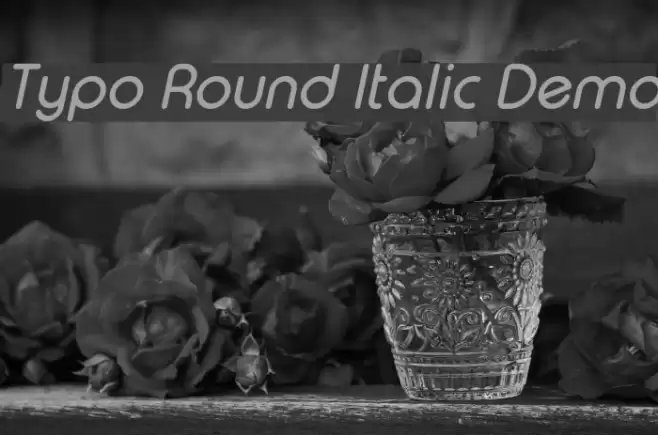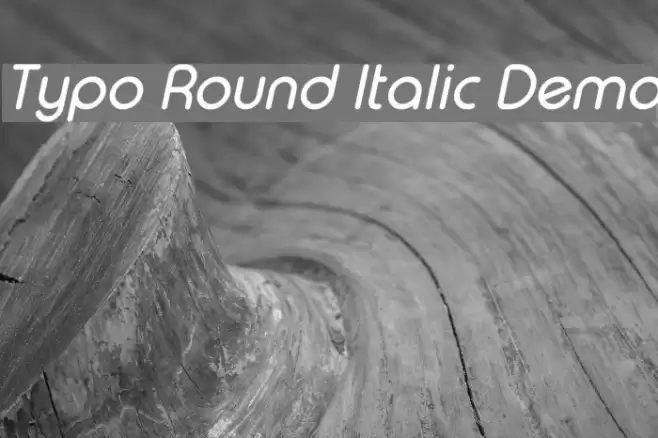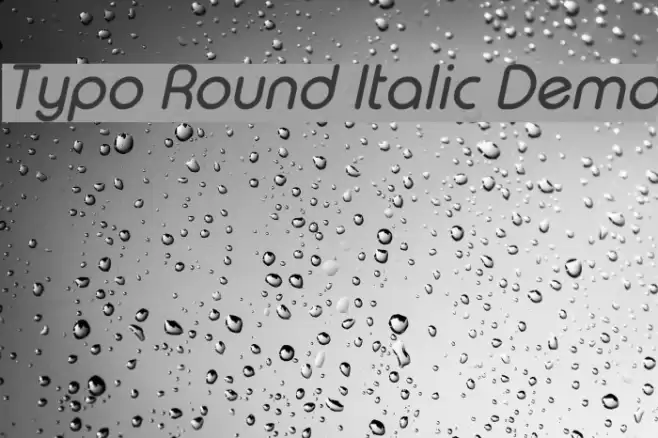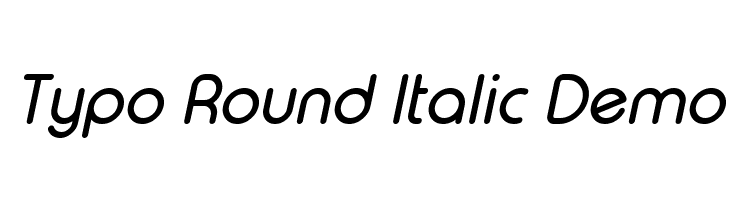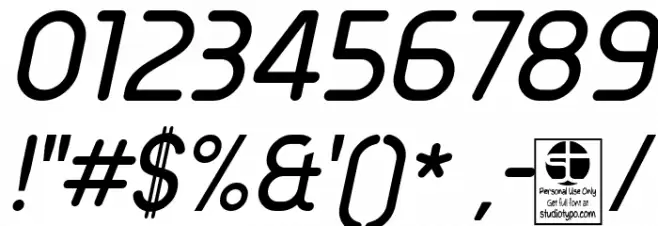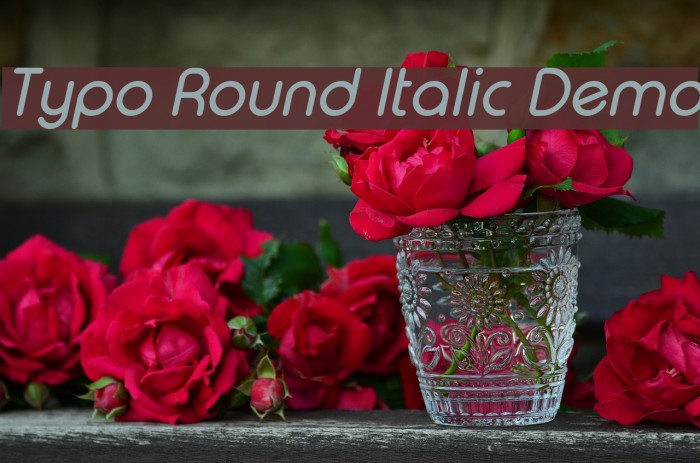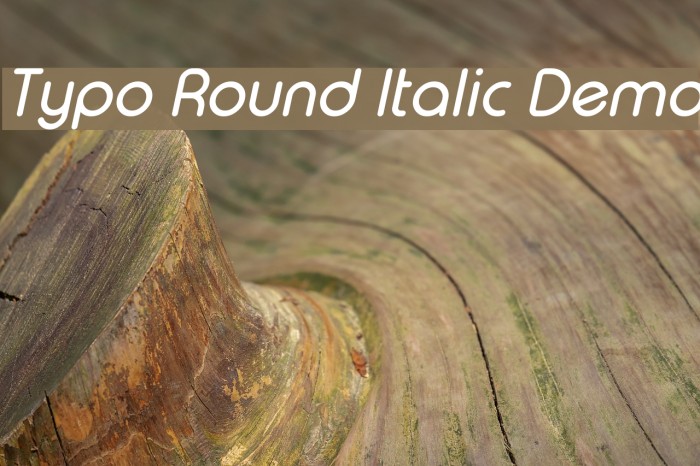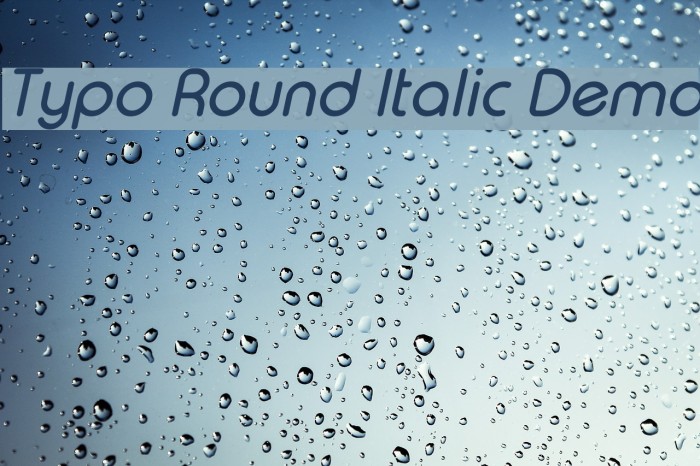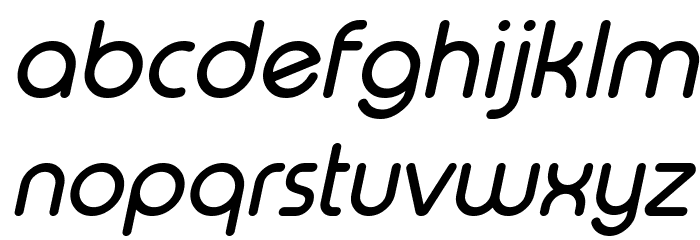
Typo Round Italic Demo Font
Typo Round Italic Demo Description
This font features a sleek, rounded design with a modern and friendly appearance. The characters are slightly italicized, giving them a dynamic and fluid look. The rounded edges soften the overall aesthetic, making it approachable and versatile. The font maintains a consistent stroke width, contributing to its clean and uniform appearance. It is well-suited for a variety of applications, from digital interfaces to print media, where a contemporary and approachable feel is desired.
A modern, rounded, and slightly italicized font with a friendly appearance from Round fonts.
- Proposed Projects: Ideal for branding, user interfaces, advertising, and packaging design.
- Use Case: Headlines, Logos, User Interfaces